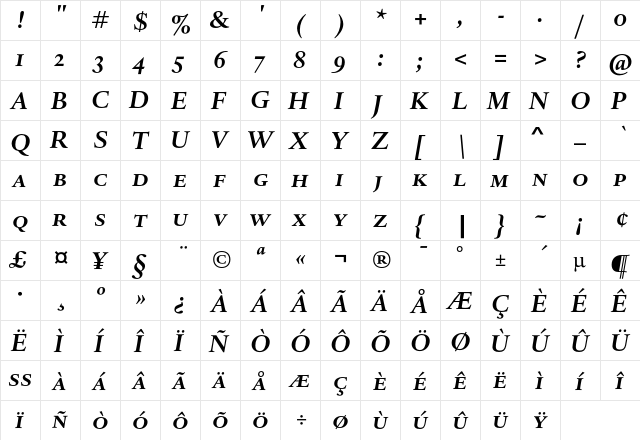
DTLHaarlemmerDCaps BoldItalic
Design Context for DTLHaarlemmerDCaps Typeface
DTLHaarlemmerDCaps offers clean, dependable letterforms without strong stylistic allegiance, making it a practical choice for designers who need flexibility. The dynamic lean of this cut emphasises speed and emphasis in any layout. The heavy weight commands attention and anchors typographic hierarchies.
Pro Tip: Use DTLHaarlemmerDCaps for emphasis, pull quotes, and subheadings where its slanted energy can add rhythm to the layout.